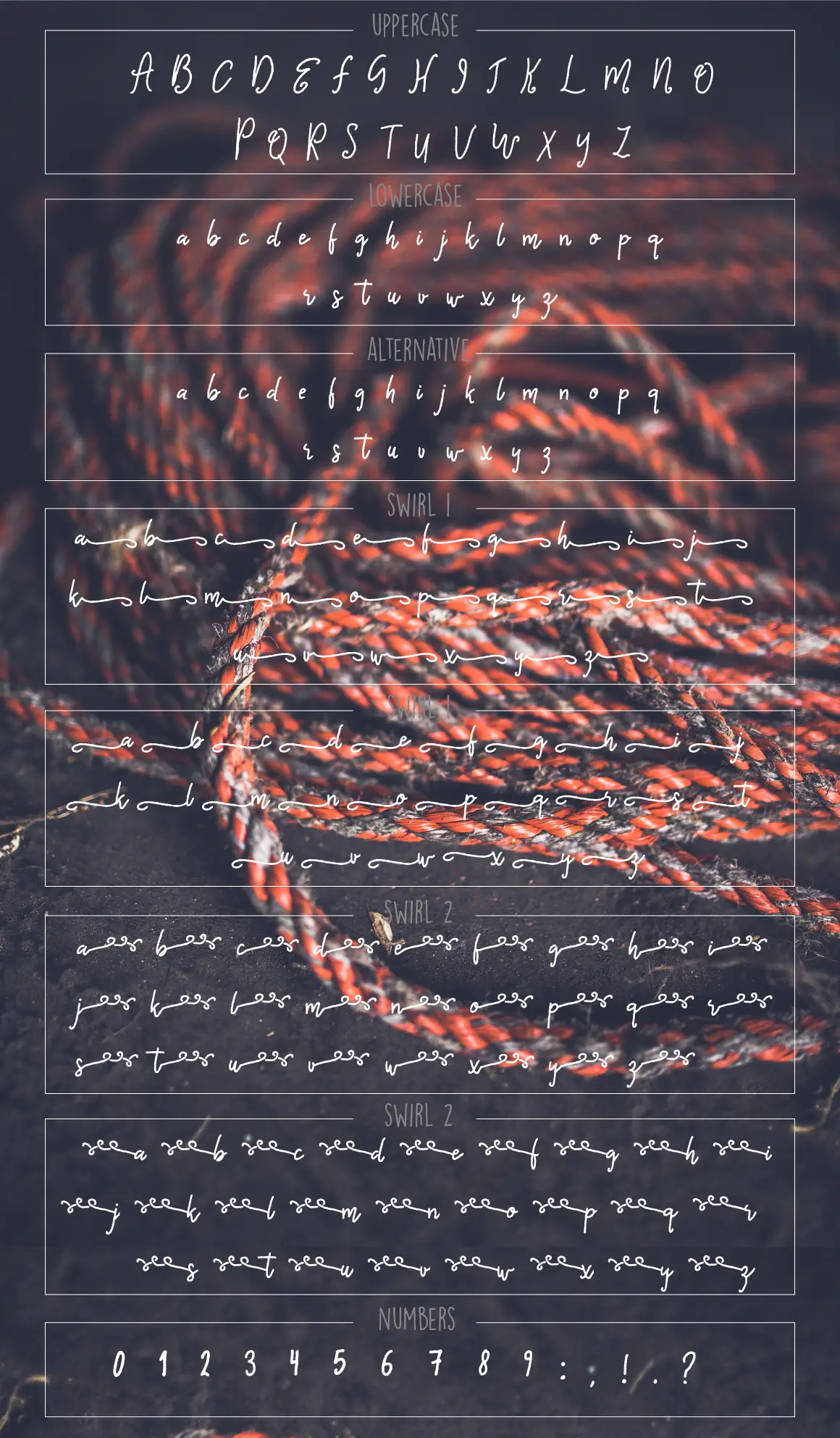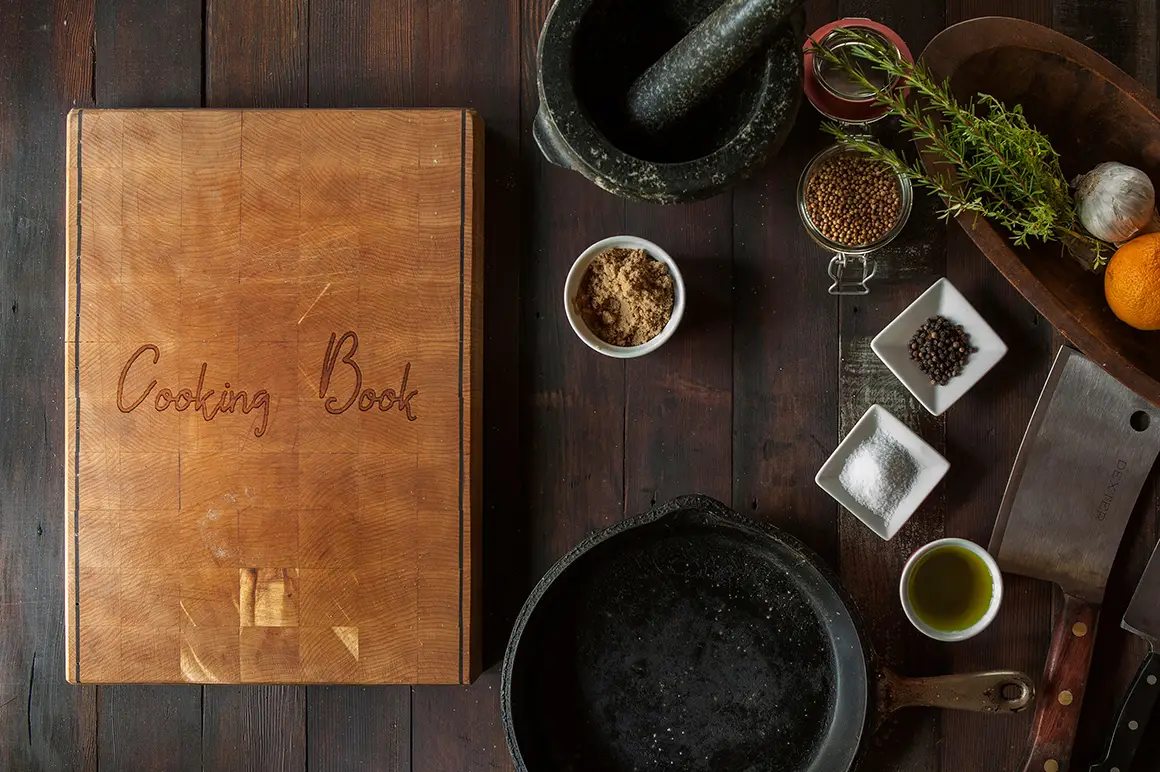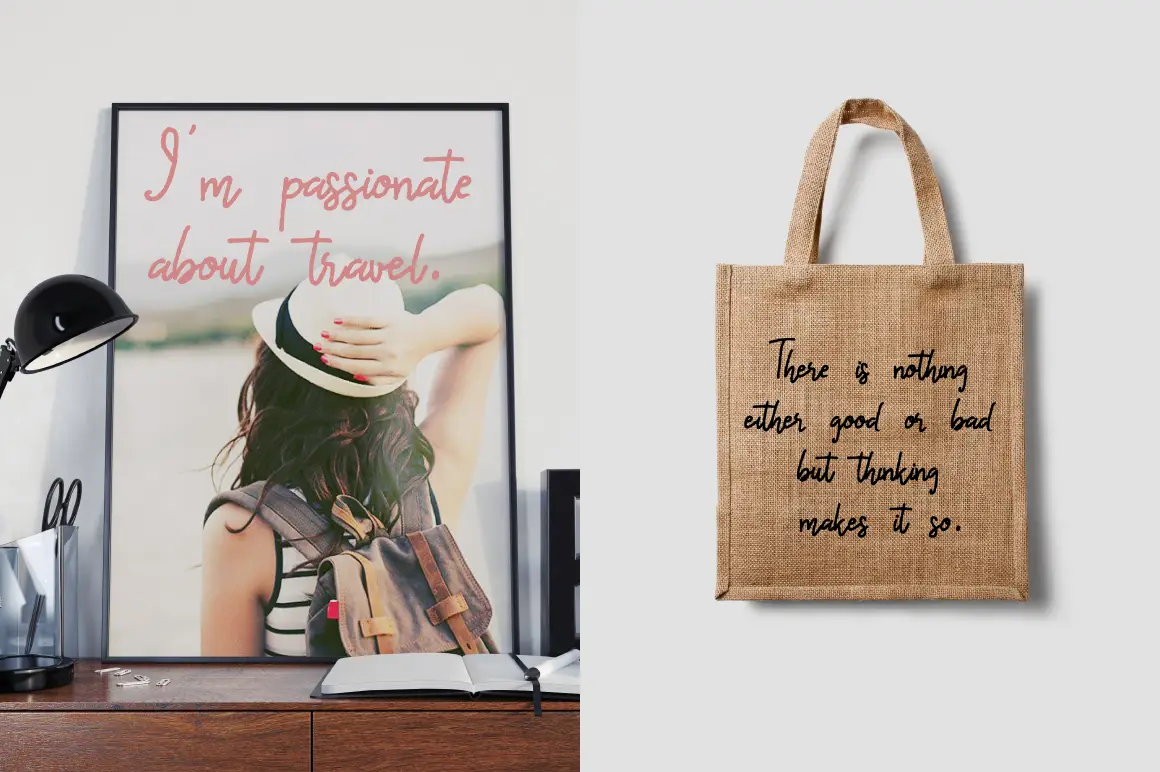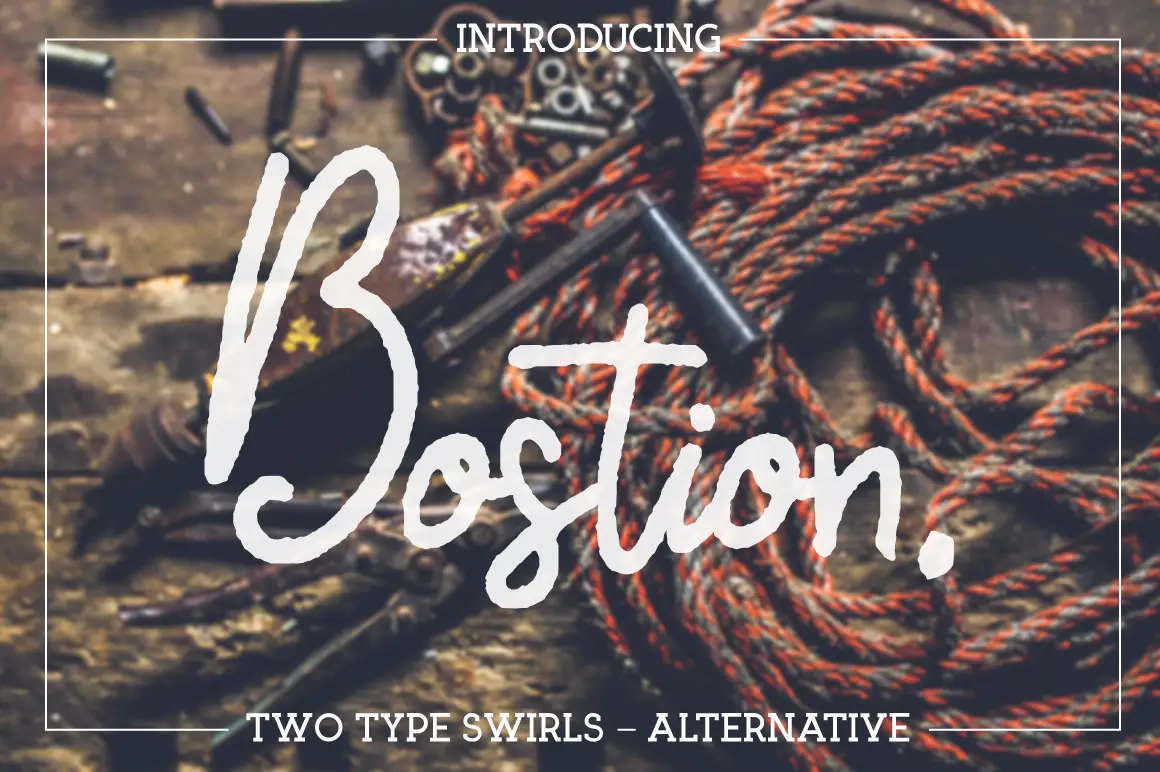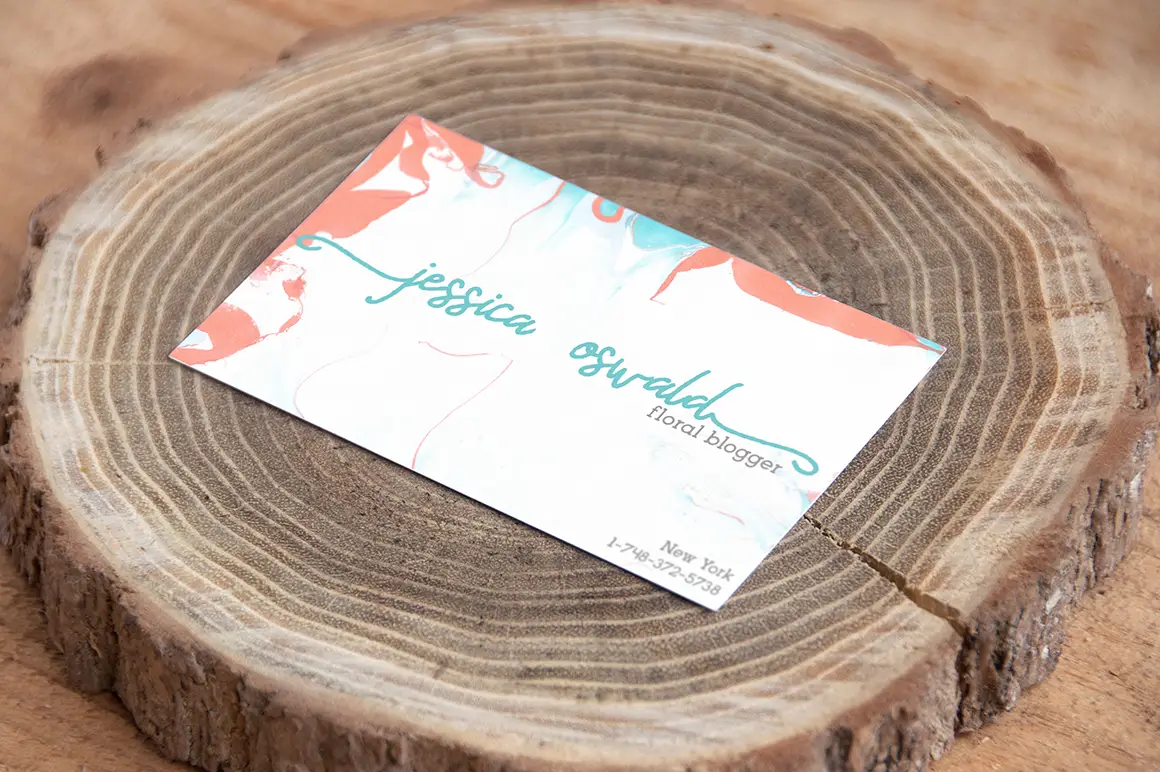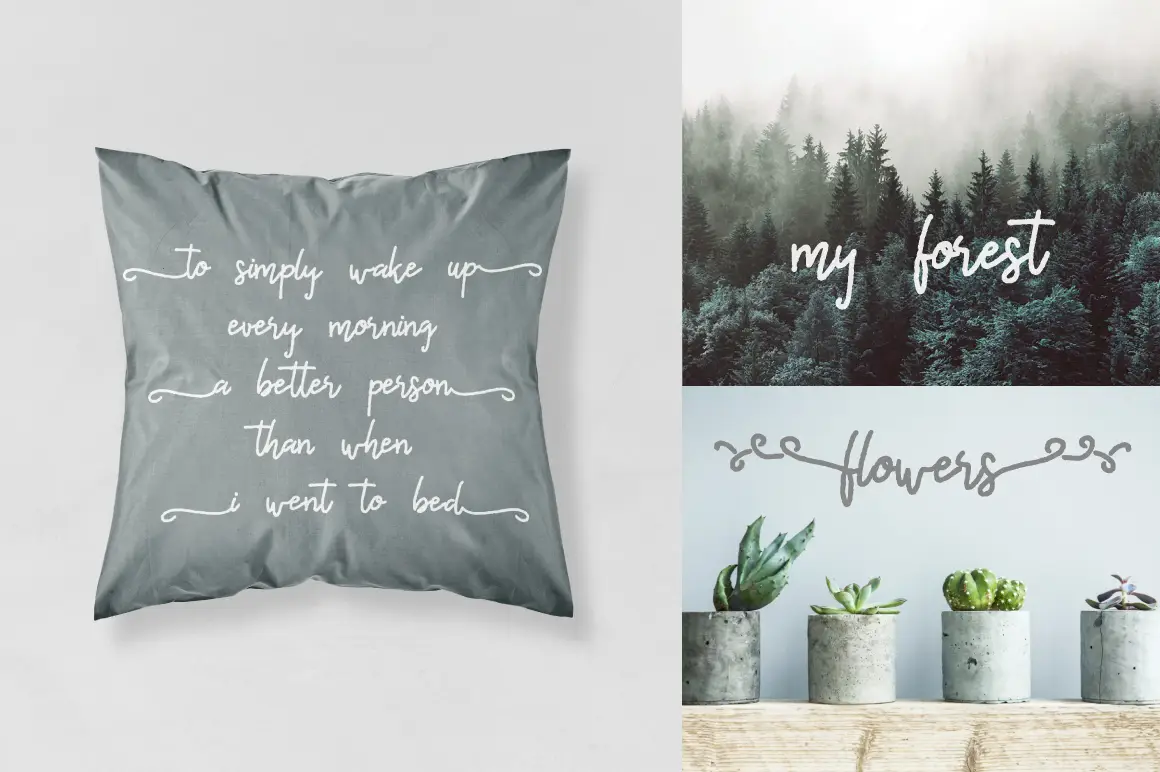
Bostion Font
The Bostion Font is a modern and stylish typeface designed to elevate your creative projects. With its unique blend of elegance and readability, this font is perfect for a variety of applications, including branding, logos, web design, and print materials.
• Stylish uppercase and lowercase letters
• Supports a wide range of languages
Utilize Bostion Font for eye-catching headlines, engaging social media graphics, and elegant invitations. Its versatility makes it suitable for both digital and print projects.